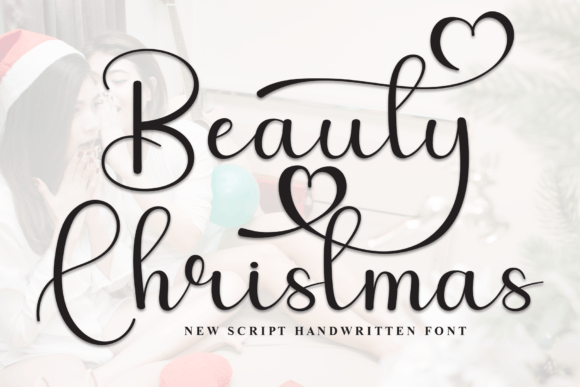
Introduction to Beauty Christmas Font
Welcome to a world of whimsical charm with this beautifully handcrafted display font that radiates warmth and approachability.
Masterfully walking the tightrope between adorable and vivacious, this font is the go-to resource for genuine, welcoming designs It finds its perfect home in romantic wedding invitations and heartfelt greeting cards, or any artwork that calls for a sparkling and buoyant flair.
Key Features of Beauty Christmas Font